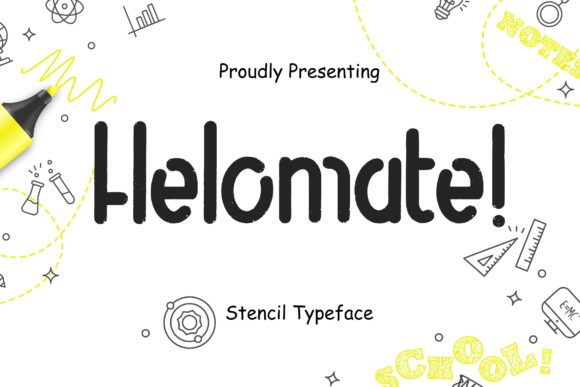
Embark on a typographic odyssey with Helomate Font, the quintessential display font that captivates and enthralls. Its striking stencil design dances across your designs, leaving a trail of visual allure and distinction. Crafted with meticulous attention to detail by the visionary artisans at CreatypeStudio, Helomate Font transcends the boundaries of ordinary fonts, ascending to the realm of artistic brilliance.
Immerse yourself in the limitless possibilities that Helomate Font unlocks. Its chiseled edges and bold presence command attention, transforming your creative endeavors into masterpieces of visual communication. With Helomate Font as your ally, conquer the world of branding, weaving captivating logos that leave an indelible mark on the minds of your audience. Craft headings that leap off the page, captivating readers with their bold elegance.
Unleash your creativity and let Helomate Font guide you through a symphony of design projects. Elevate wedding invitations to ethereal heights, imbuing them with a touch of timeless sophistication. Design signatures that exude an aura of authority and panache. Create logos that resonate with power and memorability. Adorn labels with a touch of rugged charm. Whatever your vision, Helomate Font is your steadfast companion, ready to transform your ideas into tangible works of art.
Helomate Font is more than just a font; it's an experience that empowers you to make a statement, to leave an imprint on the world through the language of design. Its unique look and feel ignite imaginations, captivating audiences and leaving them spellbound. As you wield Helomate Font, you step into the ranks of creative luminaries, etching your name in the annals of visual artistry.
With Helomate Font at your fingertips, mediocrity becomes a distant memory. Embrace the extraordinary, embrace the power of typography, and embark on a journey where your creativity knows no bounds. The possibilities are infinite, and the results are awe-inspiring. Make Helomate Font your font of choice and let your designs soar to unprecedented heights.